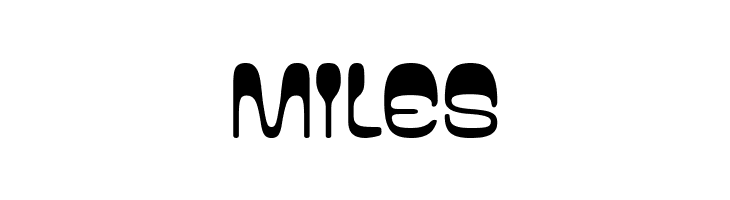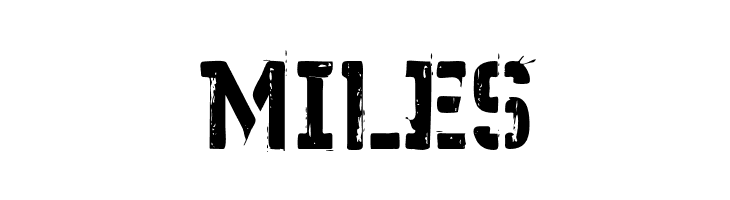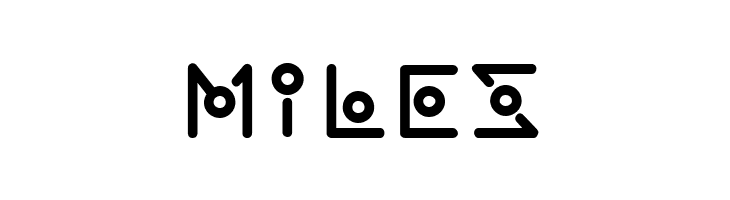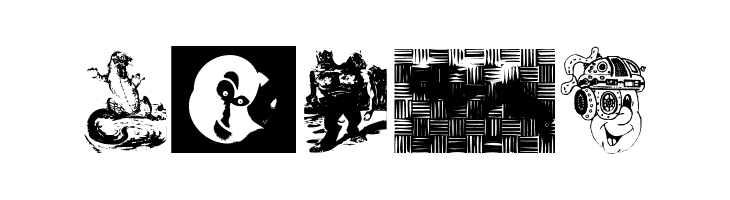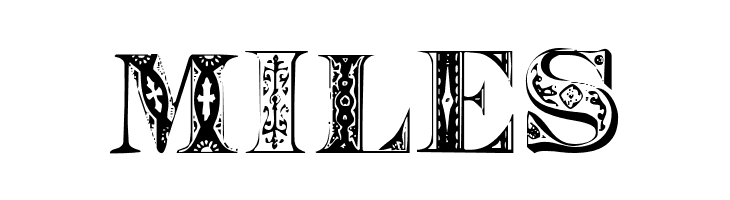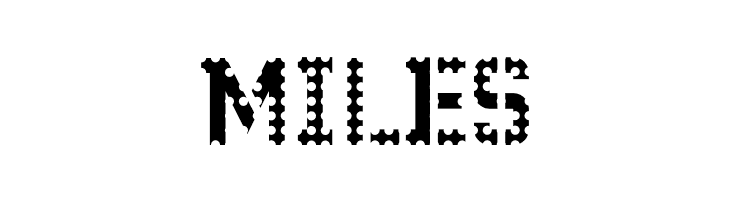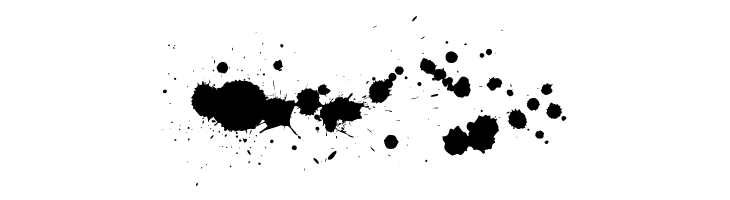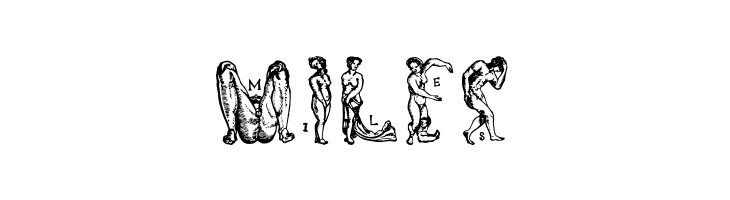
An artistic font with ink splatter-inspired characters, offering a chaotic and expressive style.
A bold, distressed font with a rugged, graffiti-like appearance.
A bold, perforated stencil font with a modern industrial aesthetic.
A collection of artistic and illustrative designs, each character is a unique scene or object.
A highly stylized, abstract font with angular, wedge-like shapes.
A dynamic, brush-like font with an expressive, hand-drawn style.
A bold, rounded font with a futuristic and playful style.
An artistic font featuring human figures forming each character.